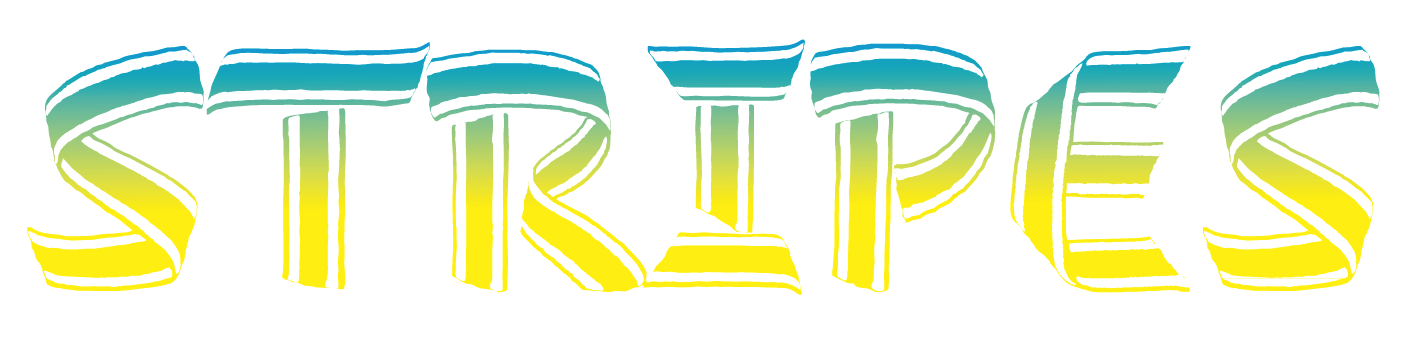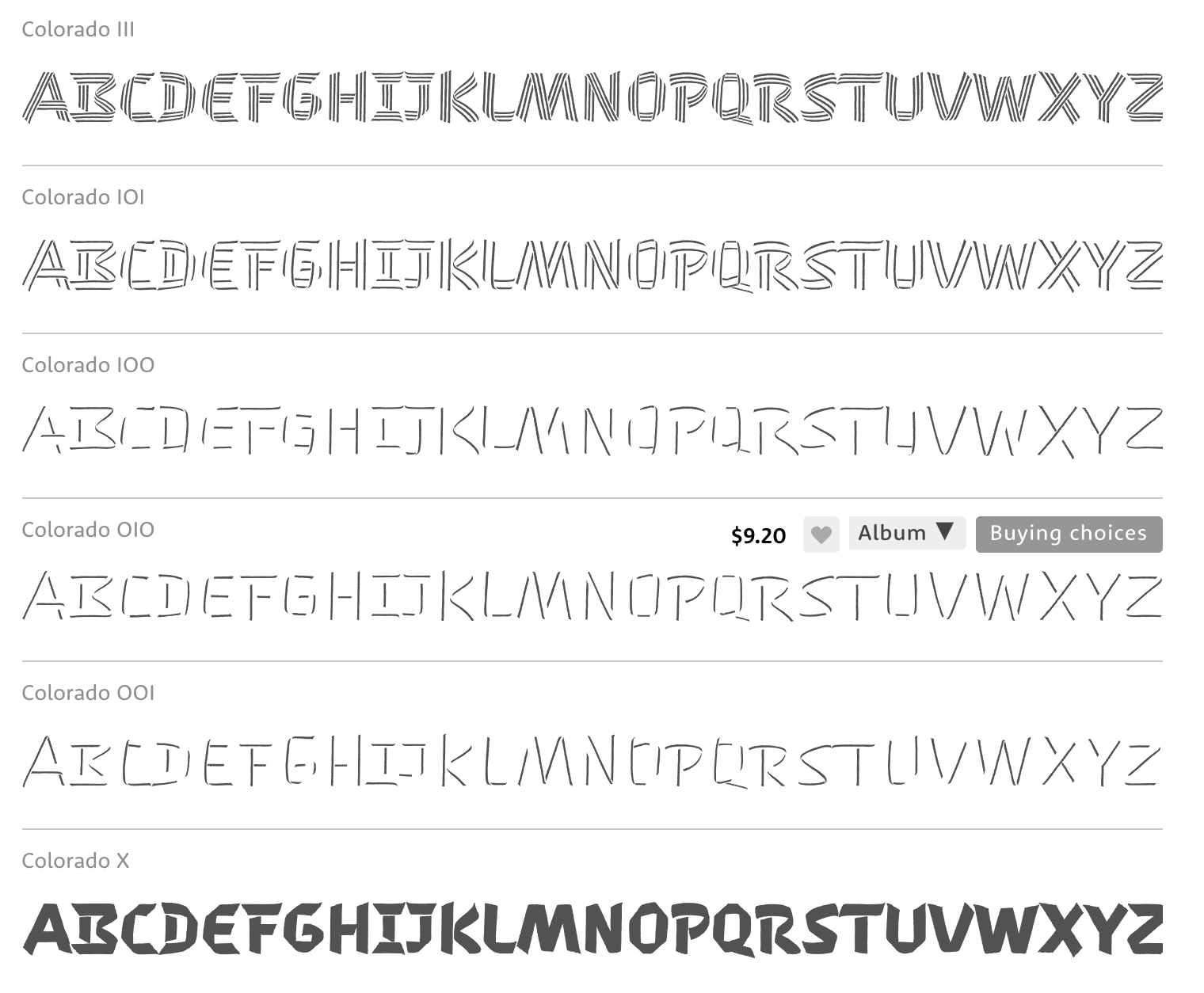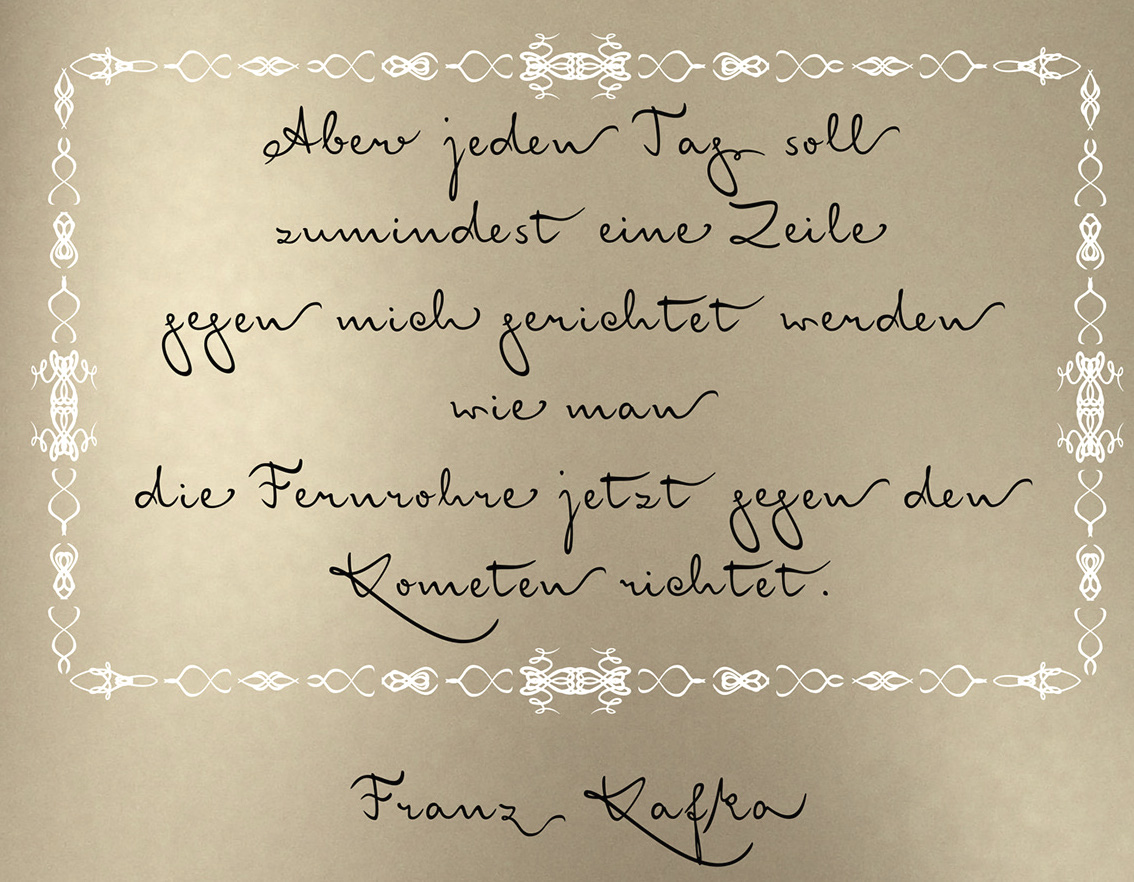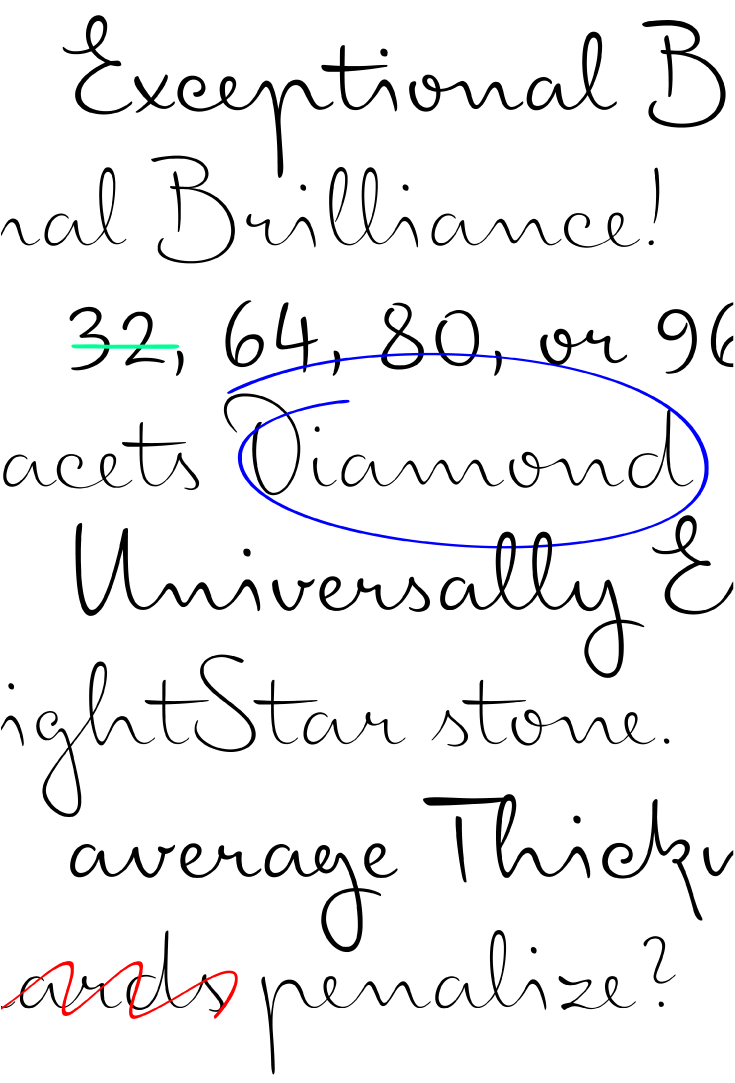
Juliasys [Julia Sysmäläinen]
Julia Sysmäläinen Carelian (Juliasys) is a Finnish type designer, who studied at Pekka Halosen Akatemia in Tuusula. She runs her own type foundry, Juliasys. Julia presently lives in Berlin, where she works for Edenspiekermann Berlin.
Julia created these typefaces:
• FF Mister K Pro (2008, FontFont). A winner at Paratype K2009, where it says that the typeface was co-designed by Jürgen Sanides from Germany. This is a digital rendering extraordinaire of Franz Kafka's handwriting. Ivo Grabowitsch writes: This meant not only creating hundreds of ligatures - each of them consisting of two, three or even four single characters - but also integrating numerous alternate characters to avoid successions of repeating shapes, in order to lend FF Mister K Pro a more authentic script feel. Furthermore handy OpenType functions were added, for example for stylistic alternatives including hatched text as well as underlining and crossing out. Eventually three completely different single fonts were developed. Besides the normal cut there's also Crossout, which allows for setting extensively crossed out text and Onstage, which clearly looks more extravagant and wriggly. All foreign languages and features included the standard cut alone contains more than 1,500 glyphs. In 2009, she published FF Mister K Dingbats. FF Mister K Informal (2011) won an award at TDC 2012. FF Mister K Splendid followed in 2014 and Mister K Crossout and Mister K Onstage in 2015.
• In 2012, Julia published the beautiful handwriting font ALS SyysScript at Art Lebedev Studio.
• As Juliasys, Julia Sysmäläinen published the semi-serif Latin / Cyrillic / Greek typeface family Mir (2013) and the handwriting font Emily in White (2014, based on the writing style of American lyricist Emily Dickinson (1830-1886)).
• ALS Finlandia Script (2015, for Art Lebedev Studio).
• ALS Pobeda (2015). A MIG29-themed dot matrix typeface inspired by the Moscow Victory Day Parade commemorating the 70th anniversary of the end of the Second World War.
• Sentres Icons (2015). Designed for Sentres, a tourist portal for South Tyrol. In 2016, she designed the Visit Berlin Icons.
• Josef K Paneuropean, and Josef K Patterns (2015, ornaments based on Kafka's letterforms).
• ALS Scripticus (2013). A blackboard script.
• Colorado (2016). A ribbon type family with several kinds of zebra stripes. Codesigned by Julia Sysmäläinen and Jürgen Sanides, published by Juliasys.
• Optimisti (2016). A smooth thick script typeface.
• Little House Script (2017). A typeface simulating Laura Ingalls Wilder's handwriting.
• MIR Next (2021). A 20-style humanist---semi---slab-serif for Latin, Cyrillic and Greek, with enough bells and whistles to make it useful for Vietnamese and scientific texts.